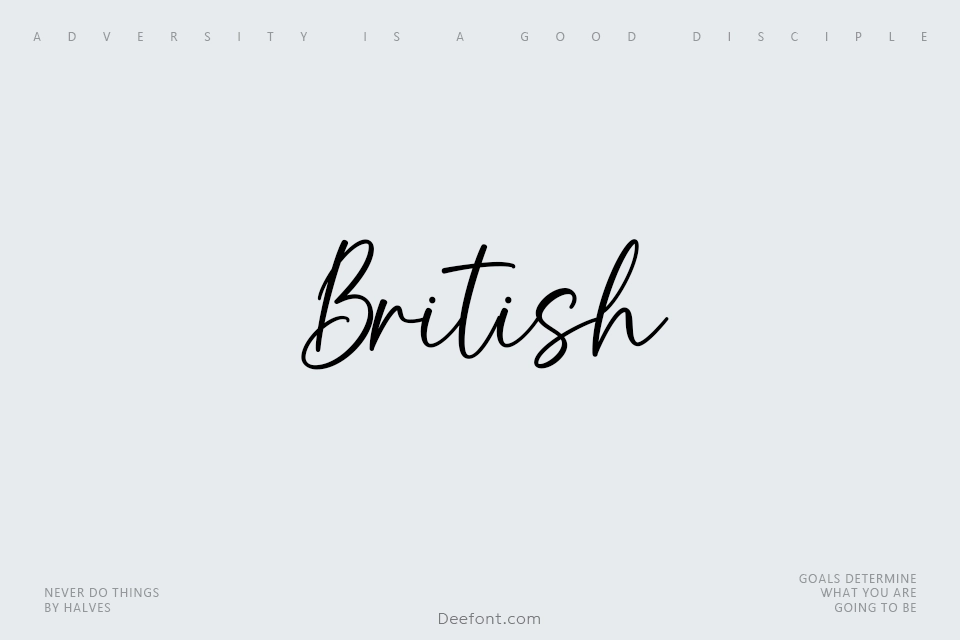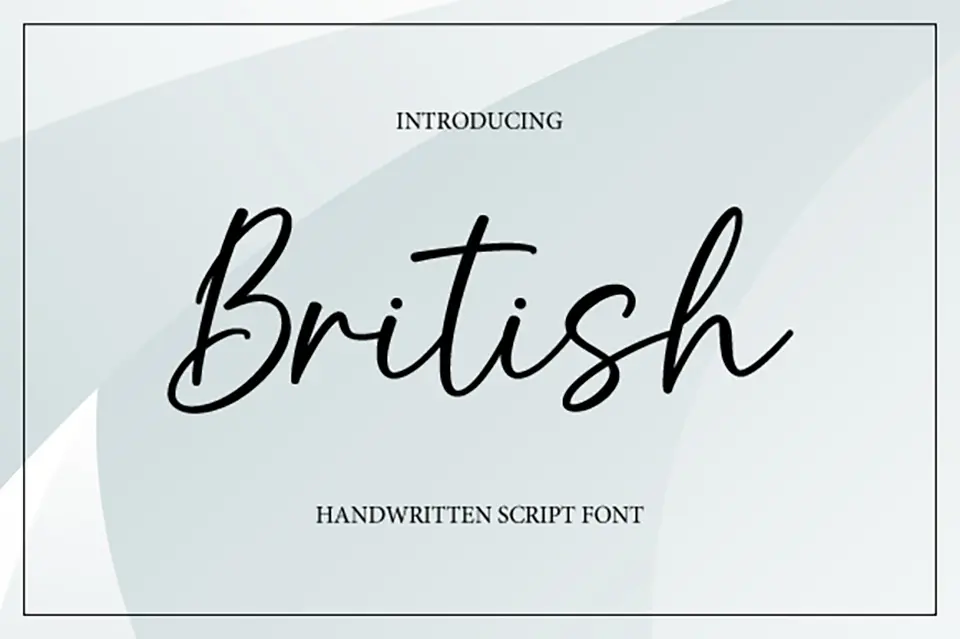
British Font
British Font is a handwritten script typeface designed by Nirmala Creative, known for its elegant and flowing strokes. With a casual yet creative look, it’s perfect for stylish branding, invitations, and artistic design projects. The font is free for personal use but requires a commercial license for business projects. Its distinctive handmade style adds a charming, personal touch to any design, making it ideal for fashion and wedding themes or creative lettering.